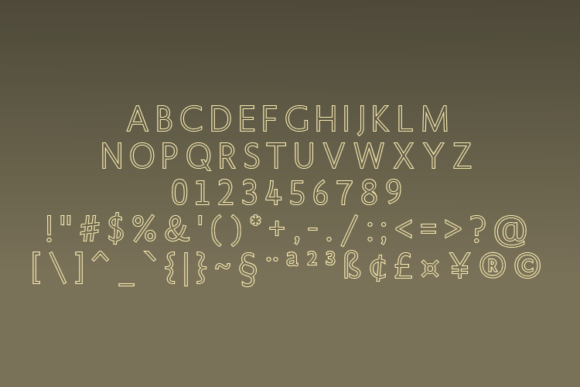
Do you remember the moment when you finally found the perfect font to elevate your design? For designers, it’s a moment of pure excitement and relief. It’s the moment when everything comes together, and your vision takes shape. For me, that moment came when I stumbled upon the Blankco Outline Semi-Bold Font. This fresh, geometric, sans-serif font is a game-changer, and I’m excited to share its story with you.
Blankco Outline Semi-Bold Font is a versatile typeface that can be used in a variety of projects, from magazines and posters to branding and websites. Its big x-height value, geometrical letterforms, and sharp edges make it a standout choice for designers looking for a unique and modern look. With its small stroke contrast, it’s similar to the neo-grotesk fonts of the 20th Century, but with a fresh twist.
Blankco Outline Semi-Bold Font Key Features
- Font Family: Blankco Outline Semi-Bold
- Unique Characteristic: Distinctive outline design with subtle semi-bold weight, providing a clean and modern aesthetic.
- Language Support: Supports a wide range of languages, including Latin, Cyrillic, and Greek scripts, making it suitable for global design applications.
Designer Review: Blankco Outline Semi-Bold Font
First impressions matter, and the Blankco Outline Semi-Bold Font definitely catches the eye. The modern, semi-bold design ✨ gives it a clean and sophisticated look that’s perfect for minimalist branding. The font’s subtle texture adds depth, making it suitable for various design applications, from web to print.
Another advantage of this font is its versatility ✨. It’s easy to use and can be paired with a wide range of colors and typography styles. Additionally, the font is highly legible, making it ideal for body text and headings.
- ⚠️ Limited character set: While the font has a good selection of uppercase and lowercase letters, it falls short in terms of punctuation and special characters. This may be a challenge for designers who need to use the font for extensive text-based projects.
- ⚠️ Not ideal for small text: The font’s outline design can make it difficult to read at small font sizes, which may not be suitable for certain design applications, such as mobile apps or web interfaces.
Overall, the Blankco Outline Semi-Bold Font is a solid choice for designers who value modern, minimalist typography. While it has its limitations, its clean design and versatility make it a great addition to any design toolkit.
Practical Application Guide for Blankco Outline Semi-Bold Font
Blankco Outline Semi-Bold Font is suitable for:
- Designing titles and headings
- Creating a unique visual identity
- Highlighting important information
- Adding a touch of elegance to your designs
Alternatives to Blankco Outline Semi-Bold Font
Playfair Display is a luxurious, high-end serif font that works well for titles and headings. It has a similar elegant and sophisticated feel to Blankco Outline Semi-Bold Font, but with a more traditional look. When to use: For high-end branding, luxury products, or formal events.
Comparison: Playfair Display is more ornate and traditional, while Blankco Outline Semi-Bold Font is more modern and minimalist. Playfair Display is better suited for formal or high-end applications, while Blankco Outline Semi-Bold Font is more versatile and can be used for a wider range of projects.